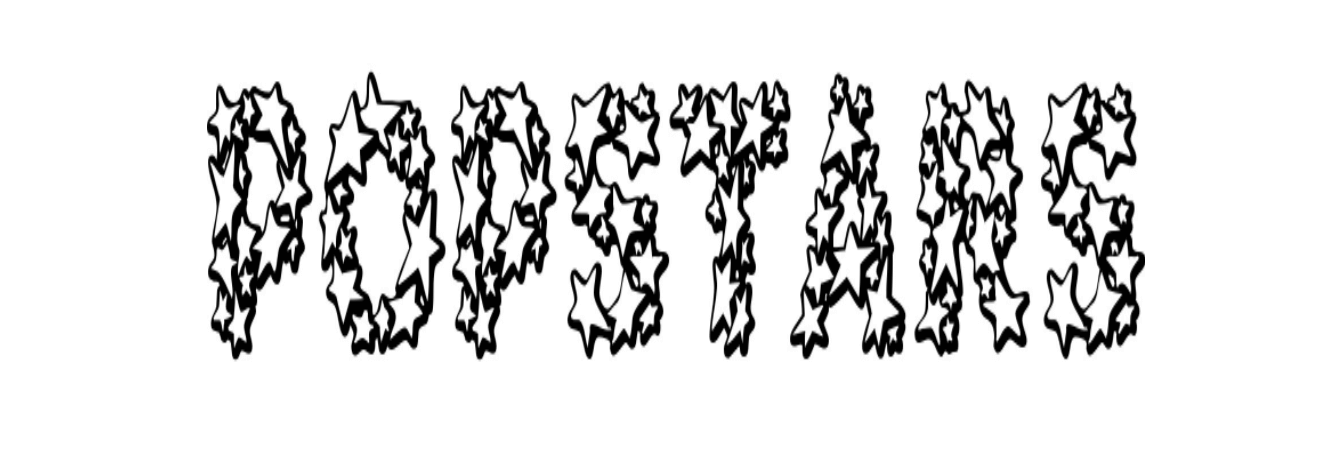
Popstars font becomes designed and posted via Harold’s Fonts. This pair of free fonts can be used one by one or layered as in the animation in this page.
Popstars Font
This font became stimulated by the hand lettering on the quilt of the classic Beatles album, magical mystery excursion. This is really an awesome font, that can be used in any of the document which needs an energetic and cool look.